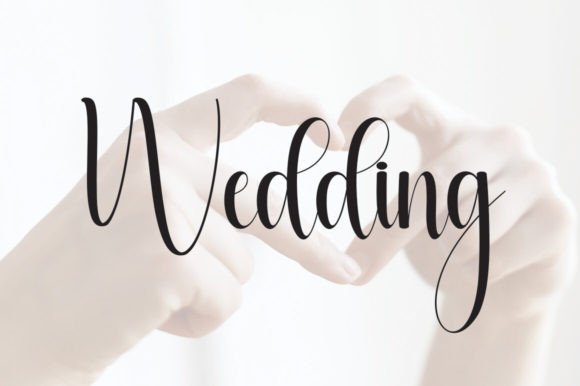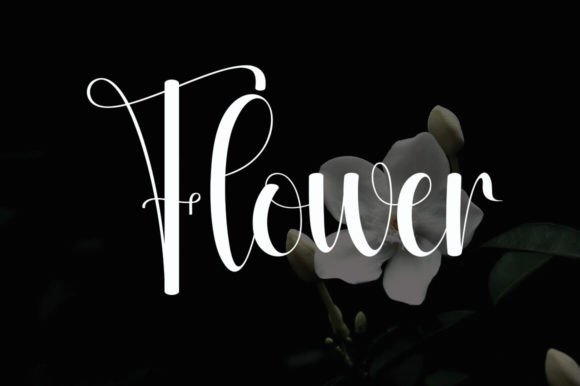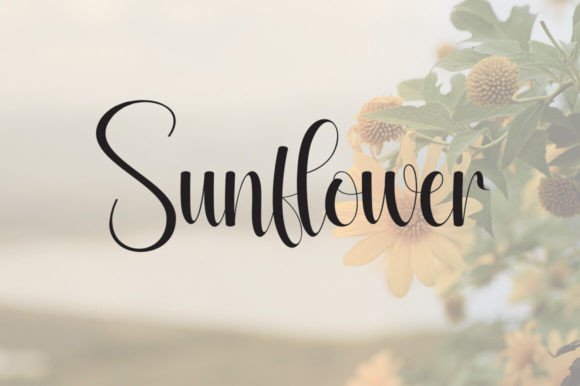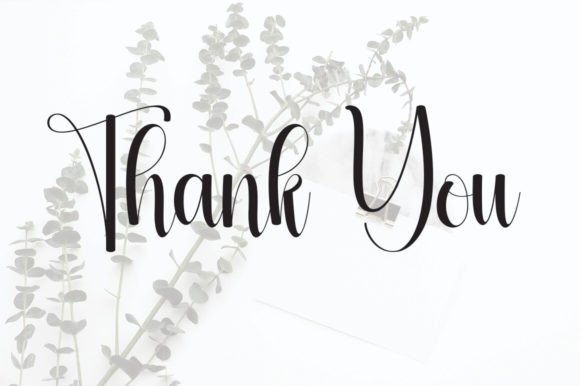
Introducing Grandma Font: A Delightful Cursive Handwritten Font
Are you looking for a font that can add a touch of elegance and charm to your design projects? Look no further than Grandma Font, a beautiful, cursive handwritten font that exudes a gentle charm. With its soft strokes and fluid lettering, Grandma is versatile, appealing, and capable of enhancing a wide range of design concepts.
A Romantic Nuance
Grandma Font is imbued with a romantic nuance that subtly sprinkles joy into your projects. This font is perfect for designers and crafters who want to add a touch of warmth and personality to their work. Whether you’re creating a wedding invitation, a greeting card, or a social media post, Grandma Font is sure to make your project stand out.
Transforming the Ordinary into the Extraordinary
One of the best things about Grandma Font is its ability to transform the ordinary into the extraordinary. With its fluid lettering and soft strokes, this font can turn even the most mundane design concept into something special. Whether you’re creating a logo, a brochure, or a website, Grandma Font can add a touch of magic to your project.
A Font that Spins Your Creative Narrative
Grandma Font is more than just a font – it’s a storytelling tool. With its hint of nostalgia and generous dose of sentimentality, this font can help you spin your creative narrative in a way that’s both engaging and memorable. Whether you’re a designer, a crafter, or a writer, Grandma Font is the perfect tool for bringing your ideas to life.
Versatility and Appeal
One of the best things about Grandma Font is its versatility and appeal. This font can be used in a wide range of design concepts, from elegant wedding invitations to playful social media posts. Its soft strokes and fluid lettering make it perfect for creating beautiful, eye-catching designs that are sure to grab attention.
Grandma Font is perfect for designers and crafters who want to add a touch of personality to their work. Whether you’re creating digital designs or handmade crafts, this font is sure to inspire your creativity and bring your ideas to life. With its romantic nuance and hint of nostalgia, Grandma Font is the perfect tool for anyone who wants to create something special.
Key Features of Grandma Font
- Delightful, cursive handwritten font
- Soft strokes and fluid lettering
- Versatile and appealing
- Imbued with a romantic nuance
- Perfect for a wide range of design concepts
- Transforms the ordinary into the extraordinary
Tips for Using Grandma Font
Here are a few tips for using Grandma Font in your design projects:
- Use Grandma Font for headings and titles to add a touch of elegance and charm
- Pair Grandma Font with a sans-serif font for a modern and playful look
- Use Grandma Font for body text to add a touch of personality and warmth
In conclusion, Grandma Font is a beautiful, cursive handwritten font that exudes a gentle charm. With its soft strokes and fluid lettering, this font is versatile, appealing, and capable of enhancing a wide range of design concepts. Whether you’re a designer, a crafter, or a writer, Grandma Font is the perfect tool for bringing your ideas to life. So why not give Grandma Font a try and see how it can transform your design projects?